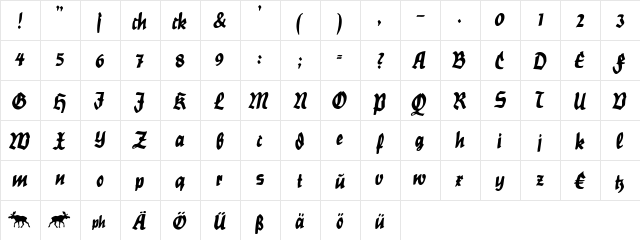
Nordland Regular
Design Context for Nordland Typeface
Nordland is a composed and adaptable typeface that performs quietly and consistently across a wide range of design contexts.